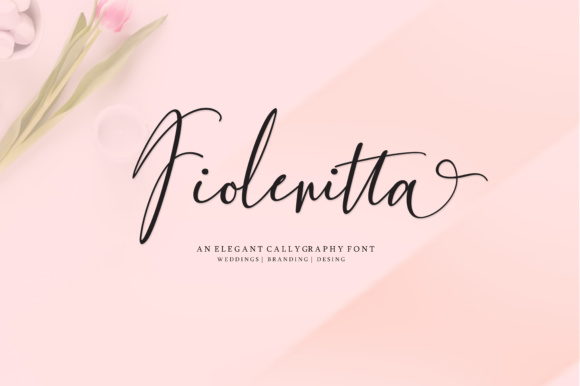
Fiolenitta: A Graceful Calligraphy Font
Fiolenitta is a stunning calligraphy font that blends elegance with modern design. Its flowing lines and refined details make it perfect for projects that require a touch of femininity and sophistication. Whether you're designing a wedding invitation, crafting a logo, or adding a personal flair to your work, Fiolenitta offers a versatile and visually appealing option.
With 444 glyphs, this font covers a wide range of characters, symbols, and special formatting options. This comprehensive set ensures that Fiolenitta can handle everything from simple text to complex layouts, making it a reliable choice for both casual and professional use.
Why Fiolenitta Matters to Different Audiences
Fiolenitta's appeal extends beyond its aesthetic value. It caters to a variety of users, each with unique needs and goals. For instance, a beginner in graphic design might appreciate the font's ease of use and visual charm, while a professional designer could value its flexibility and high-quality output.
Entrepreneurs and small business owners often seek fonts that can elevate their brand identity. Fiolenittaβs graceful style can help create a memorable and professional image, especially for businesses targeting a feminine or artistic audience.
How Beginners Might Use Fiolenitta
If you're just starting out in design, Fiolenitta can be a great addition to your toolkit. Its clean and readable structure makes it easy to work with, even if you're not an expert. Beginners can experiment with different styles and layouts, using the font to add a touch of class to their projects.
For example, a student creating a presentation or a hobbyist designing a greeting card can benefit from Fiolenitta's elegant look. The font's versatility allows for creative expression without requiring advanced skills.
Experienced Users and Creative Professionals
Designers and artists who have more experience may look for fonts that offer both style and functionality. Fiolenitta delivers on both fronts, providing a sophisticated appearance while remaining easy to integrate into various design software. Its extensive glyph set ensures that users can access all necessary characters, including accented letters and special symbols.
Professionals working on branding, packaging, or editorial design can rely on Fiolenitta to maintain consistency and quality across different media. Its adaptability makes it suitable for both digital and print formats, offering a seamless experience for experienced creators.
Educators and Content Creators
Teachers and educators looking to make their materials more engaging can find value in using Fiolenitta. Whether it's for lesson plans, handouts, or digital content, the font adds a polished and inviting look. This can help capture students' attention and enhance the overall learning experience.
Bloggers and content creators can also use Fiolenitta to stand out in a crowded online space. A well-designed title or heading can make a significant difference in how readers perceive and interact with content. By incorporating this font, creators can add a unique visual element that reflects their personality and style.
Business Owners and Marketers
For business owners, choosing the right font can have a lasting impact on brand perception. Fiolenitta's feminine and graceful qualities make it ideal for businesses in industries such as fashion, beauty, and lifestyle. It can help convey a sense of elegance and refinement that aligns with the brand's identity.
Marketers can leverage Fiolenitta to create eye-catching advertisements, social media posts, and promotional materials. Its visual appeal can attract attention and reinforce the message being communicated. Additionally, the font's readability ensures that the content remains accessible and easy to understand.
Hobbyists and Personal Projects
Hobbyists and individuals working on personal projects may appreciate Fiolenitta for its artistic and expressive qualities. Whether it's for journaling, scrapbooking, or DIY crafts, the font adds a personal and creative touch to any project.
Consumers looking for unique and stylish fonts for their own use can find Fiolenitta to be a valuable resource. Its combination of beauty and practicality makes it suitable for a wide range of applications, from custom artwork to personalized stationery.
Considering Your Needs and Goals
When deciding whether Fiolenitta is the right choice for you, consider your specific needs and goals. If you're looking for a font that combines elegance with functionality, this could be an excellent fit. However, if your project requires a more bold or industrial style, other fonts may be more appropriate.
It's also important to evaluate factors such as ease of use, cost, and long-term usefulness. Fiolenitta's comprehensive glyph set and user-friendly design make it a strong contender for many users. However, always ensure that it aligns with your project requirements and preferences.